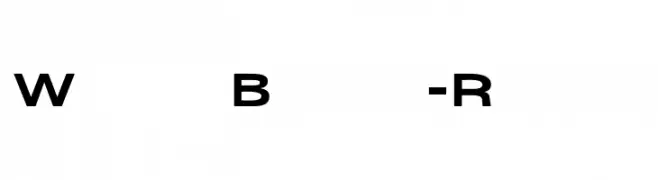
101! Birdie LuV Font
A whimsical font with characters in heart shapes topped by birds.
Birdies Font
Ornamental font with each glyph as a distinct bird illustration.
Whirly Birdie Regular Font
A bold, modern font with clean, geometric lines and a cohesive design.